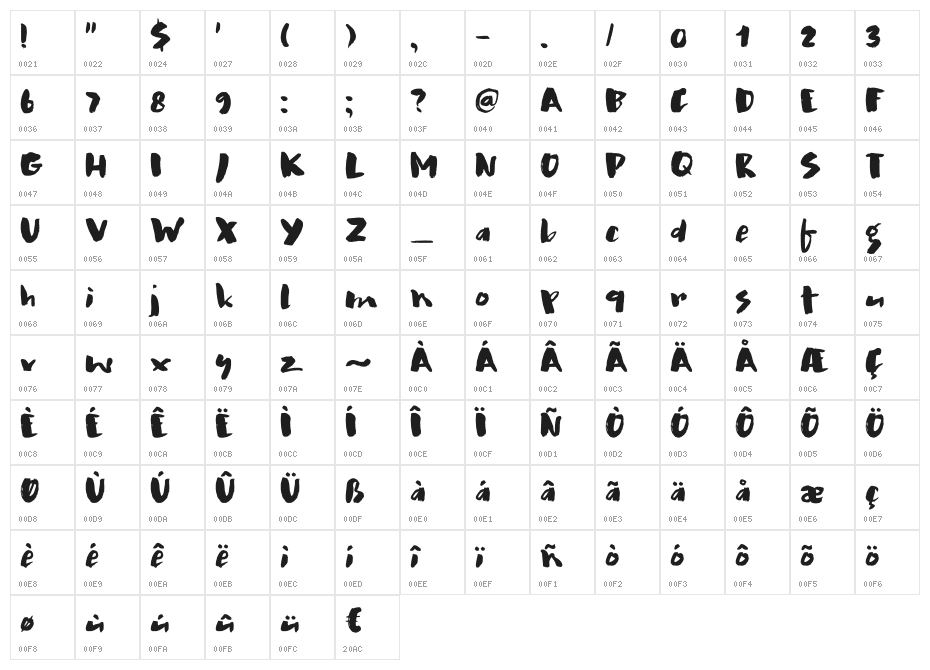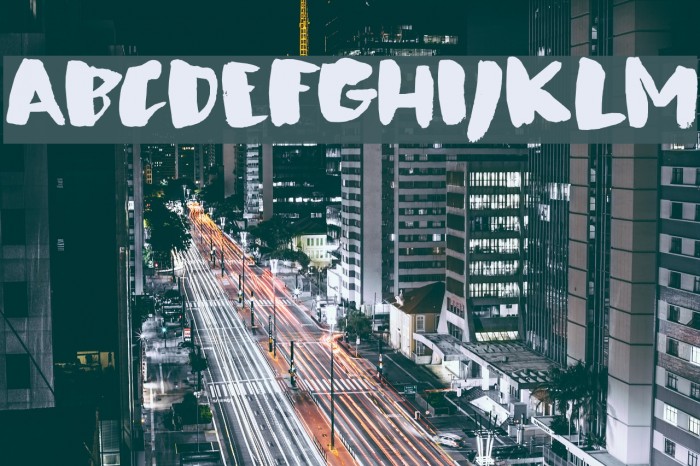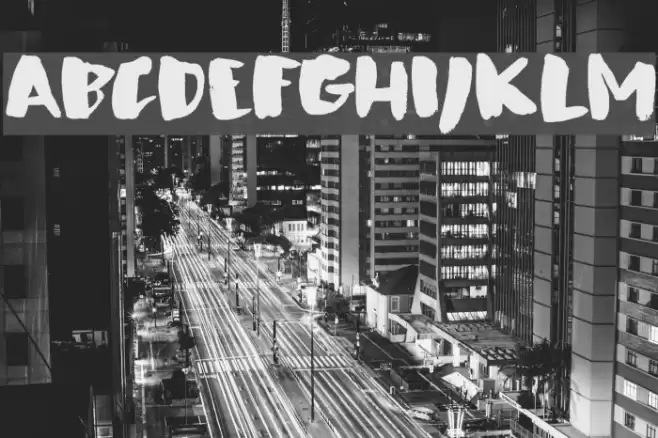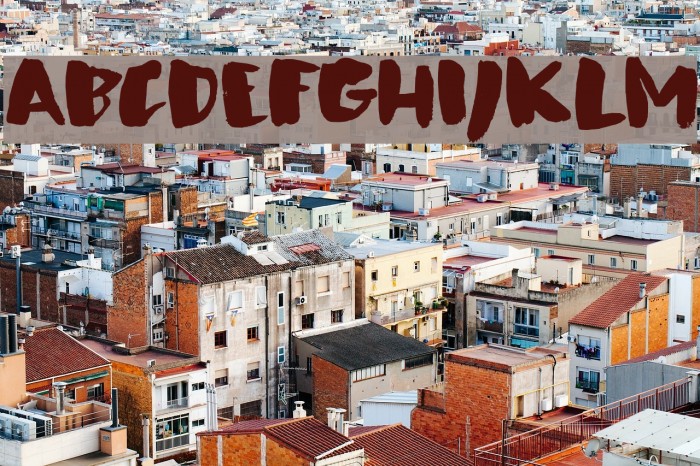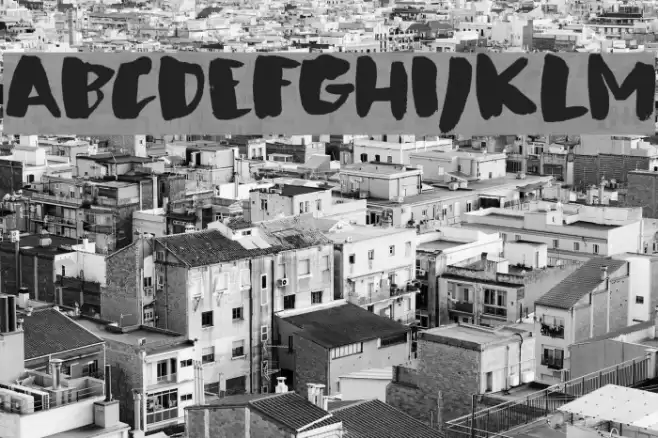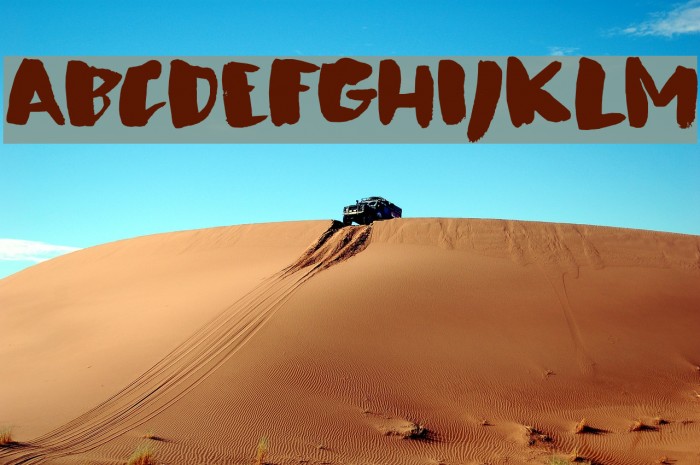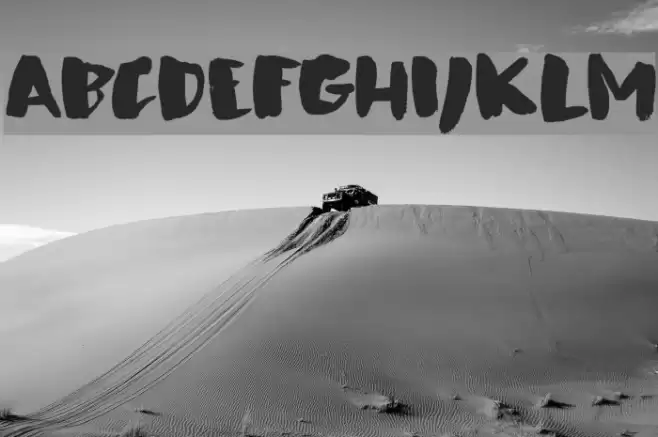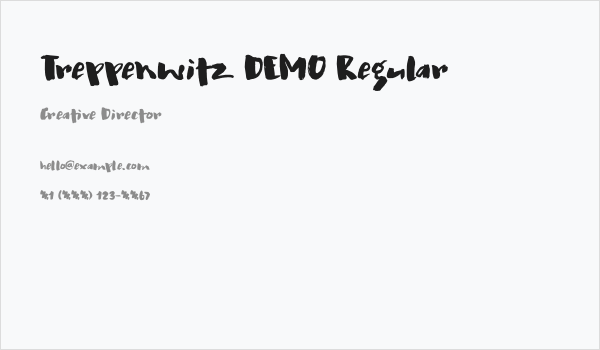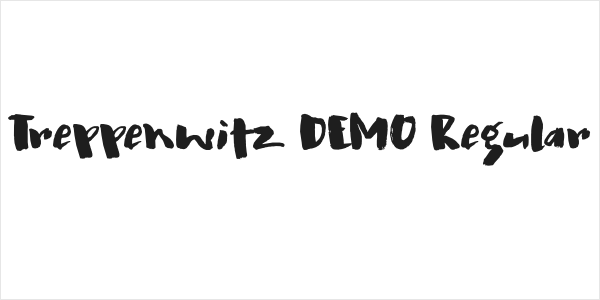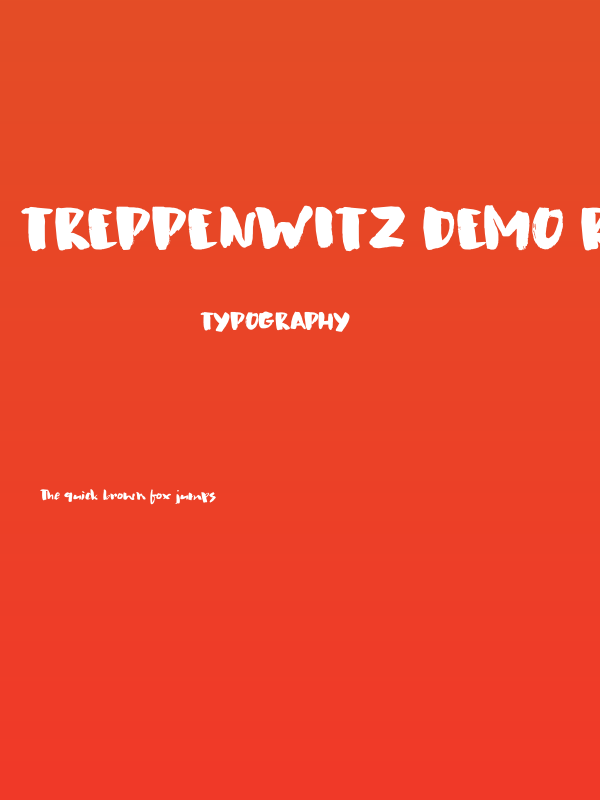
Treppenwitz DEMO Regular Font
Treppenwitz DEMO Regular Description
This font features a bold, expressive style with a hand-painted appearance. The letters are characterized by their thick, uneven strokes and dynamic movement, giving a sense of energy and spontaneity. The uppercase and lowercase letters maintain a consistent style, with a slightly irregular baseline that enhances the casual, artistic feel. Numbers and special characters follow the same bold, brush-like aesthetic, making the font suitable for creative and informal applications. The overall impression is one of creativity and boldness, perfect for making a statement.
| Proposed Projects | Ideal for posters, album covers, artistic branding, and creative projects that require a bold, expressive touch. |